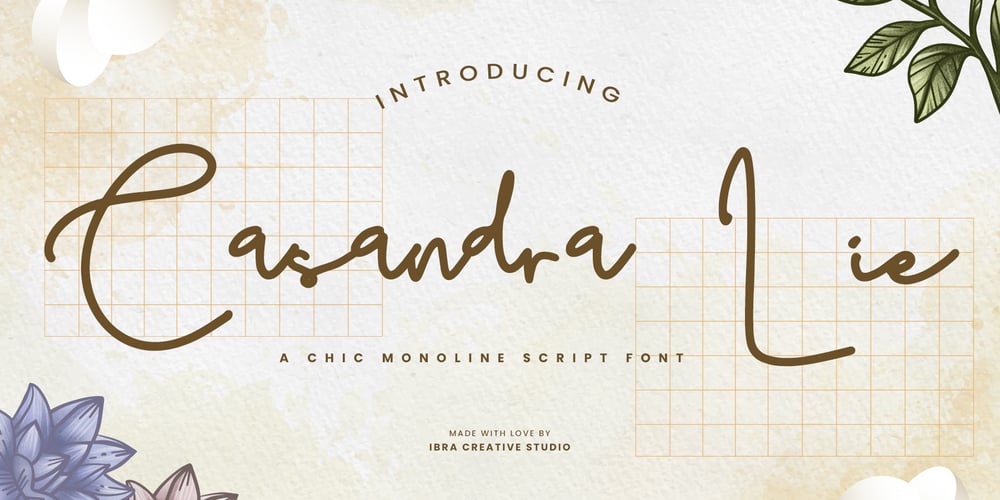
Casandra Lie Font Family was designed by Roisatul Azizah and published by IbraCreative. Casandra Lie contains 1 styles and family package options. Casandra Lie – A Chic Monoline Script FontCasandra Lie, a name like a whispered secret, perfectly embodies the essence of this chic monoline script font. Imagine the delicate stroke of a fine penmanship teacher gliding across paper, leaving behind an effortless trail of ink that dances and twirls with understated elegance. Every letter whispers tales of romance and intrigue, their slender forms adorned with graceful swashes and subtle flourishes that hint at a hidden passion. Think vintage Parisian boudoirs illuminated by candlelight, secret love letters penned under twilight skies, and the airy charm of handwritten invitations to soirees under the stars. Casandra Lie is not merely a font; it’s an invitation to a world of whispered dreams and unspoken promises, etched in ink as delicate as a spider’s web, yet strong enough to capture the beating heart of a story waiting to be told.Casandra Lie is perfect for branding projects, logo, wedding designs, social media posts, advertisements, product packaging, product designs, label, photography, watermark, invitation, stationery, game, fashion and any projects.Fonts include multilingual support for; Afrikaans, Albanian, Czech, Danish, Dutch, English, Estonian, Finnish, French, German, Hungarian, Italian, Latvian, Lithuanian, Norwegian, Polish, Portuguese, Slovak, Slovenian, Spanish, Swedish.